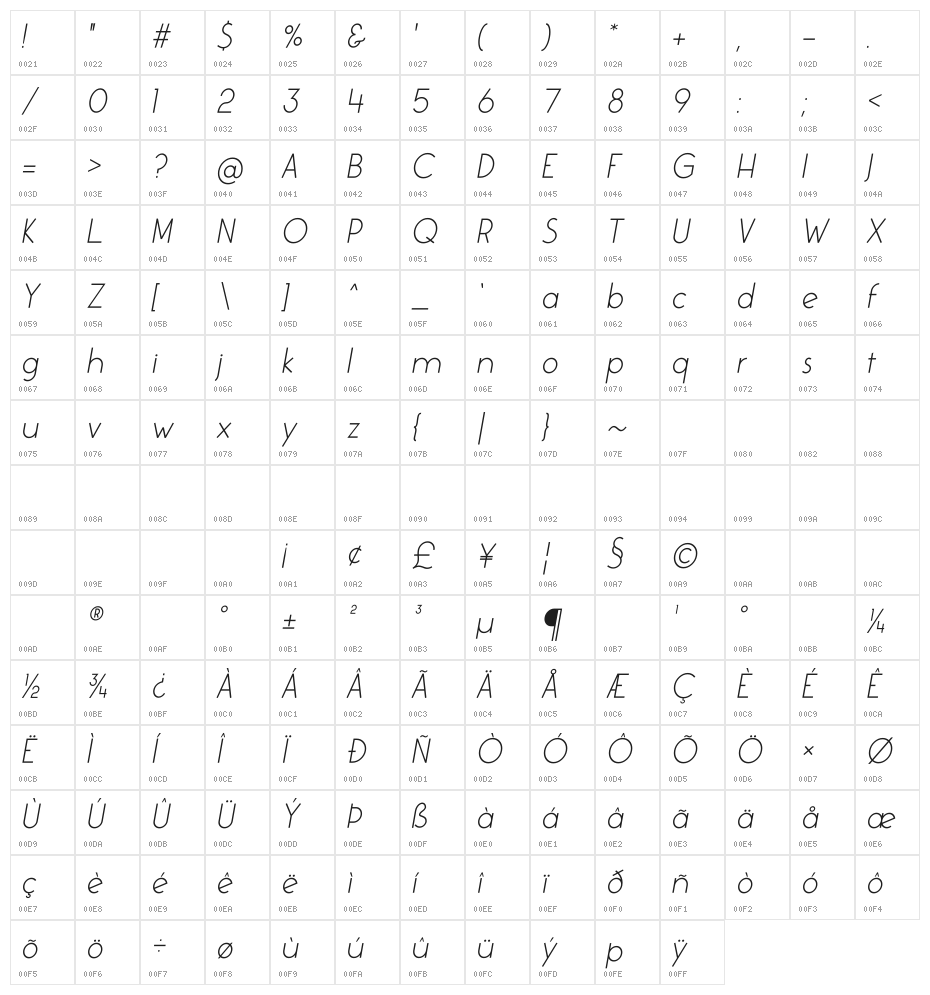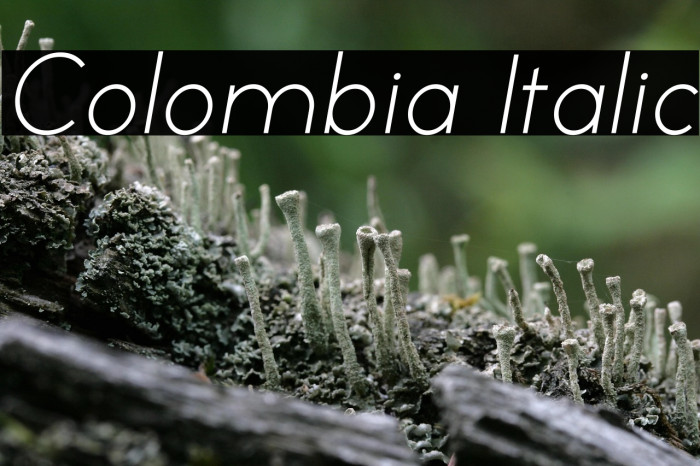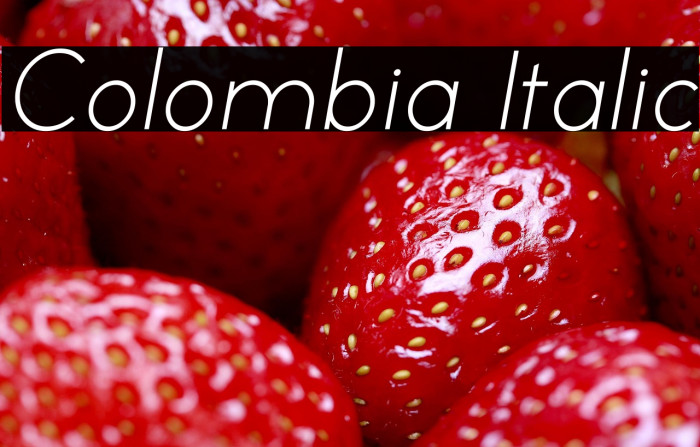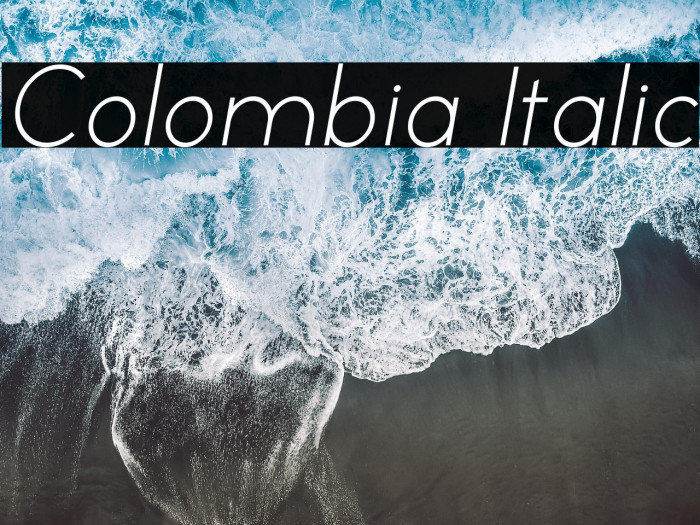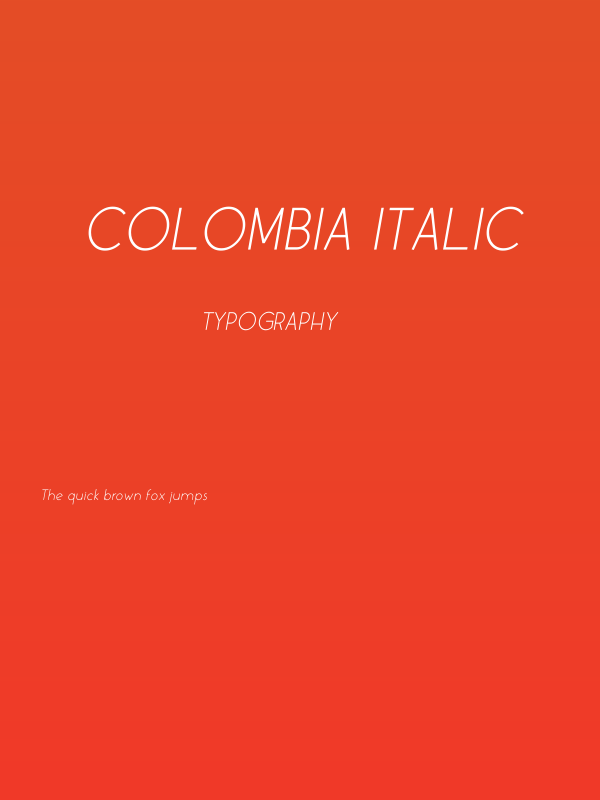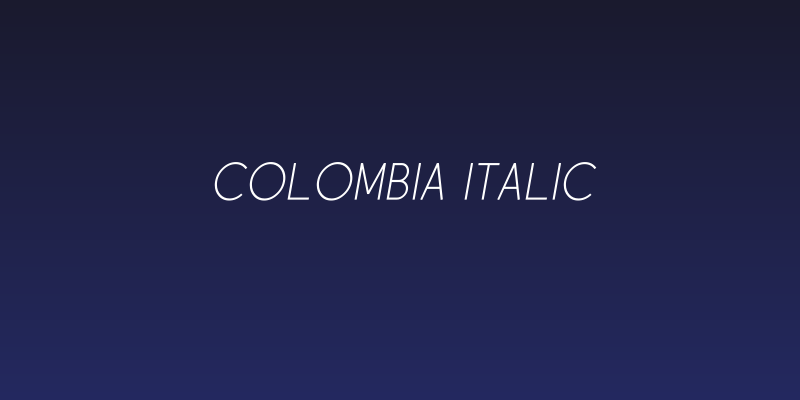
Colombia Italic Font
Colombia Italic Description
This font features a sleek and modern design with a subtle italic slant, giving it a dynamic and elegant appearance. The characters are clean and well-defined, with a consistent stroke width that maintains readability across various sizes. The uppercase letters are slightly taller than the lowercase, providing a balanced and harmonious look. The numerals and special characters are designed to match the overall style, ensuring uniformity throughout. The font's simplicity and sophistication make it versatile for a wide range of applications.